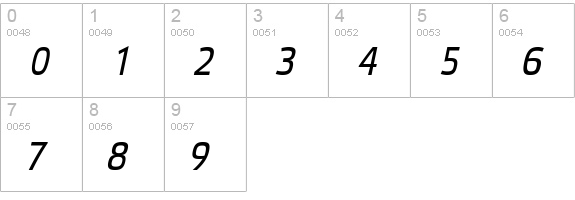
Etelka Narrow Text Pro Italic Font Details
Etelka Narrow Text Pro Italic is a distinctive, condensed-width, italic variant in the Etelka typeface family \xE2\x80\x94 well suited to design and typography projects.
Etelka Narrow Text Pro Italic font is a sleek and modern typeface designed for professional use in various design projects. With its elegant slanted style, this font exudes sophistication and class, making it perfect for adding a touch of refinement to your designs. The Etelka Narrow Text Pro Italic font is not only visually appealing but also highly versatile, suitable for a wide range of applications including editorial design, branding, advertising, and more. Its narrow proportions make it ideal for fitting a large amount of text in limited space without sacrificing readability. What's even better is that this exquisite font is available for free download at FontsMarket.com. Now you can elevate your designs with the premium quality of Etelka Narrow Text Pro Italic font without breaking the bank. Don't miss out on this opportunity to enhance your projects with a touch of elegance and style – download the Etelka Narrow Text Pro Italic font today!